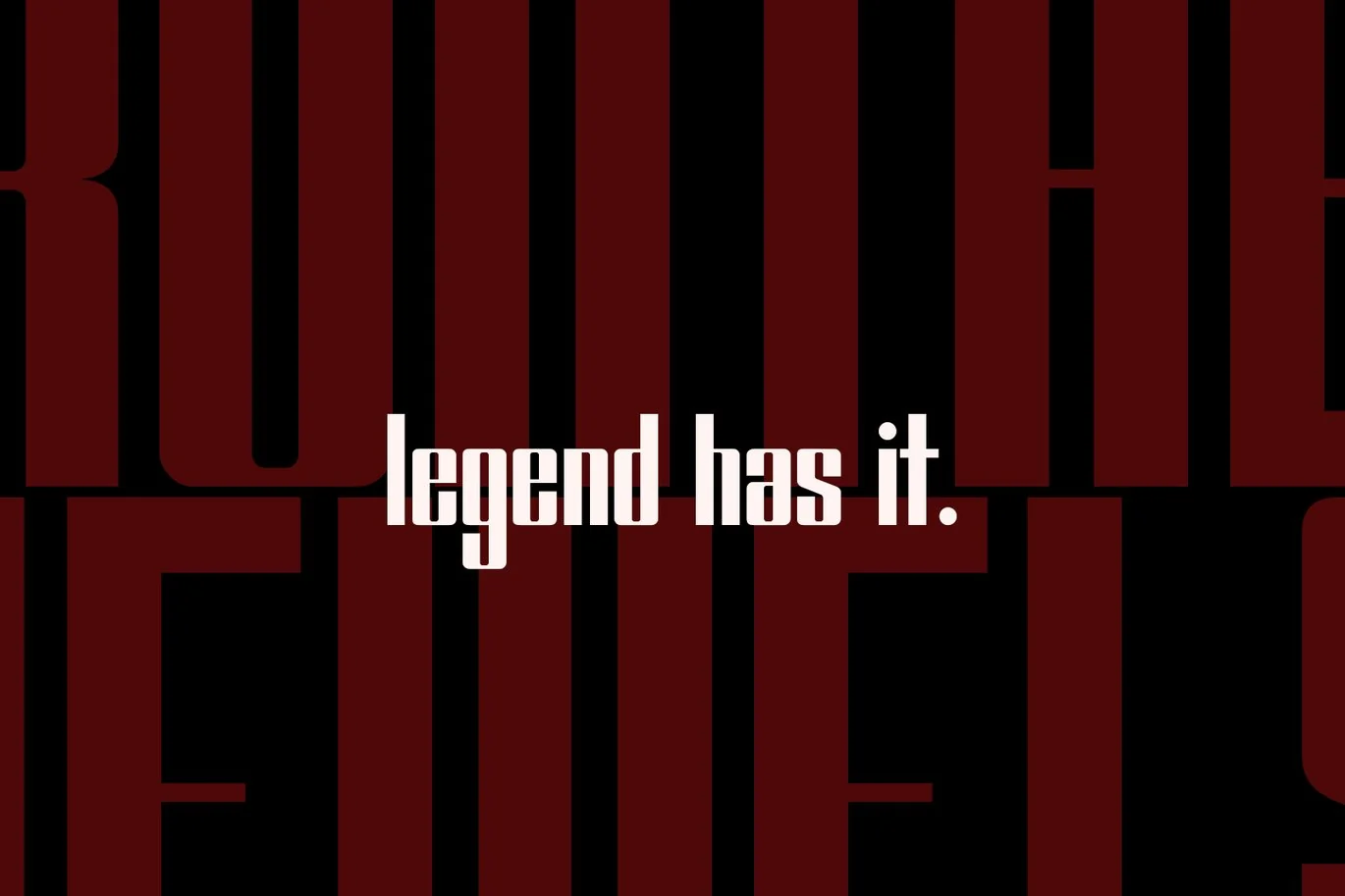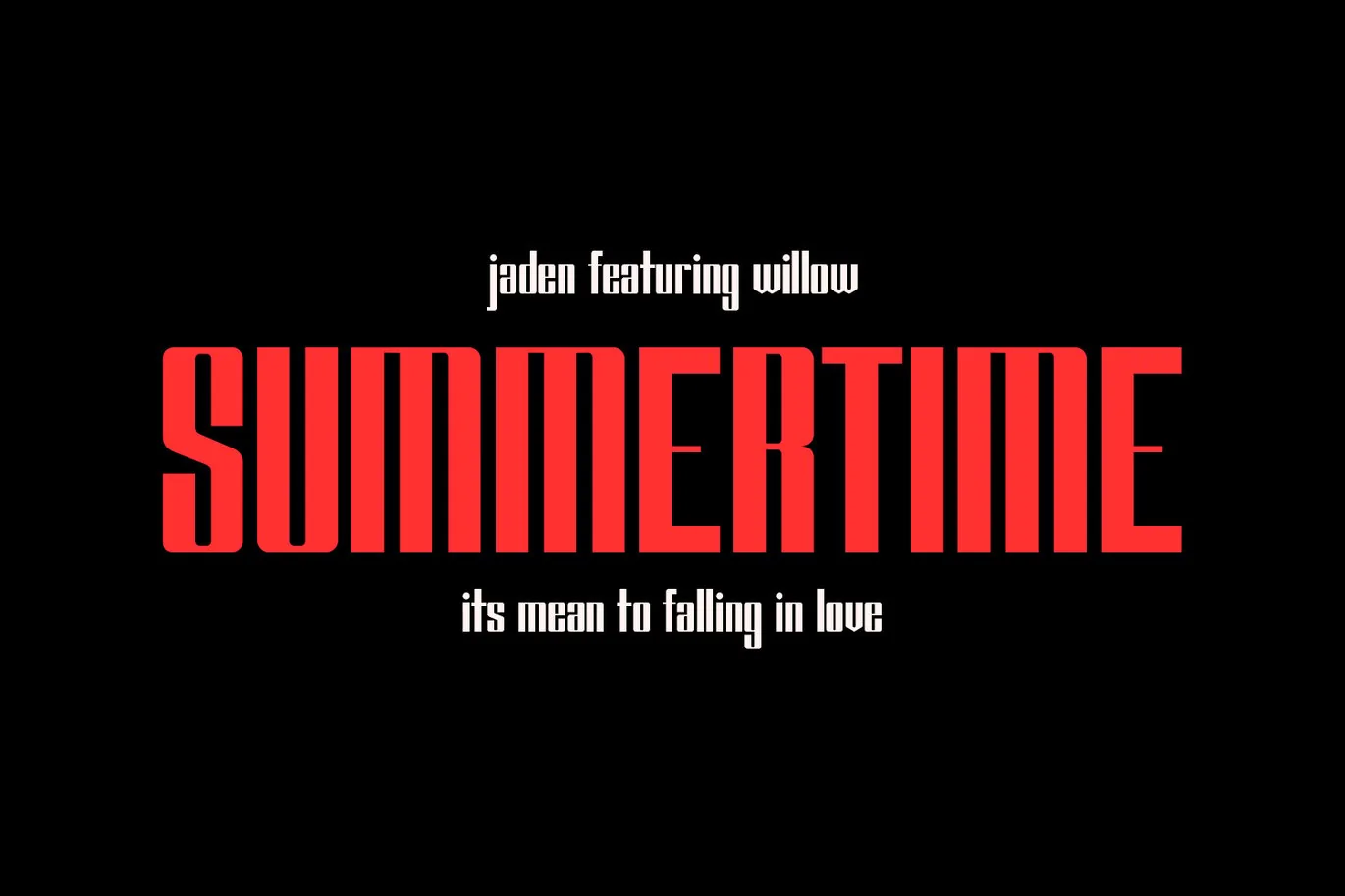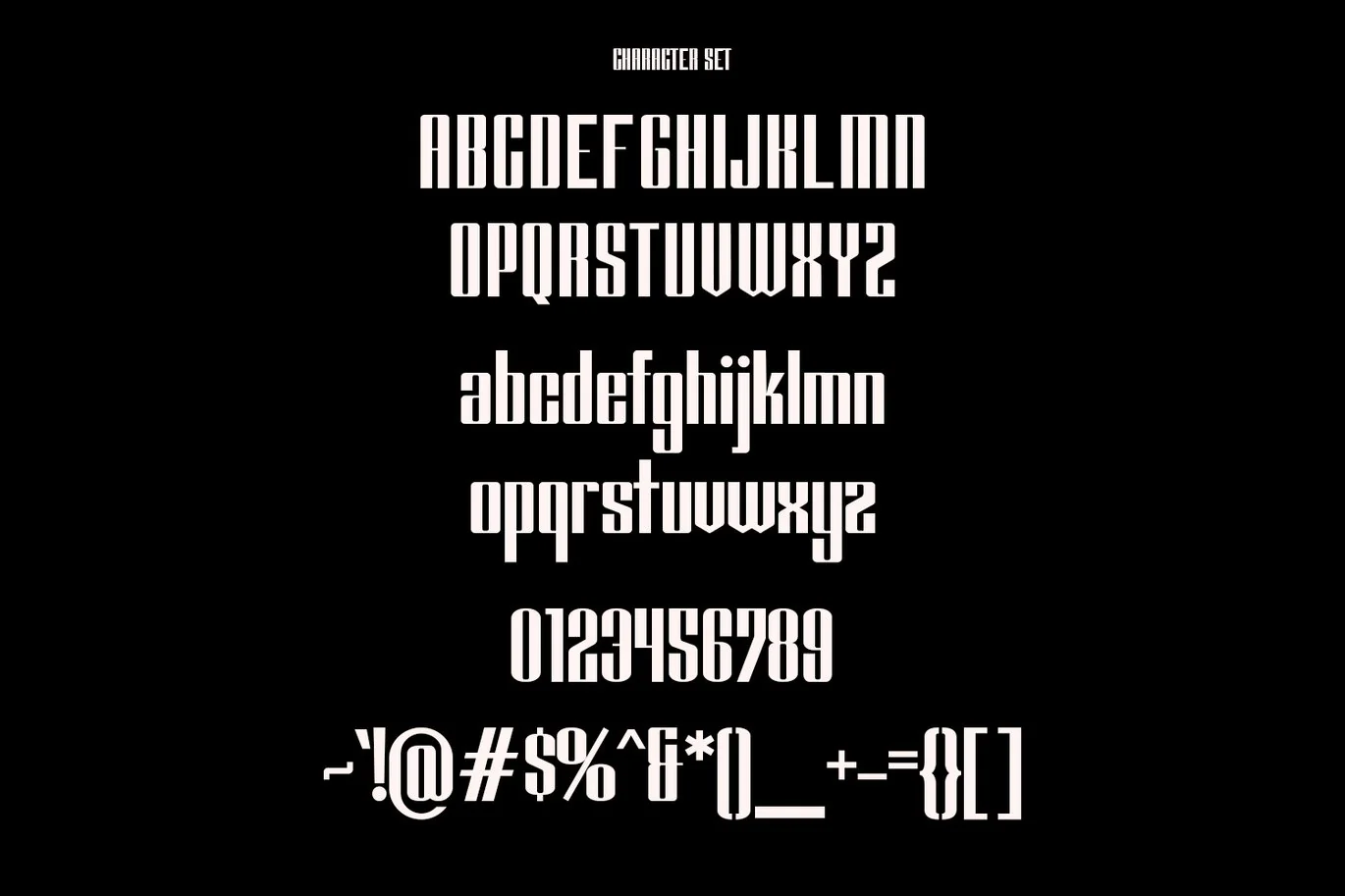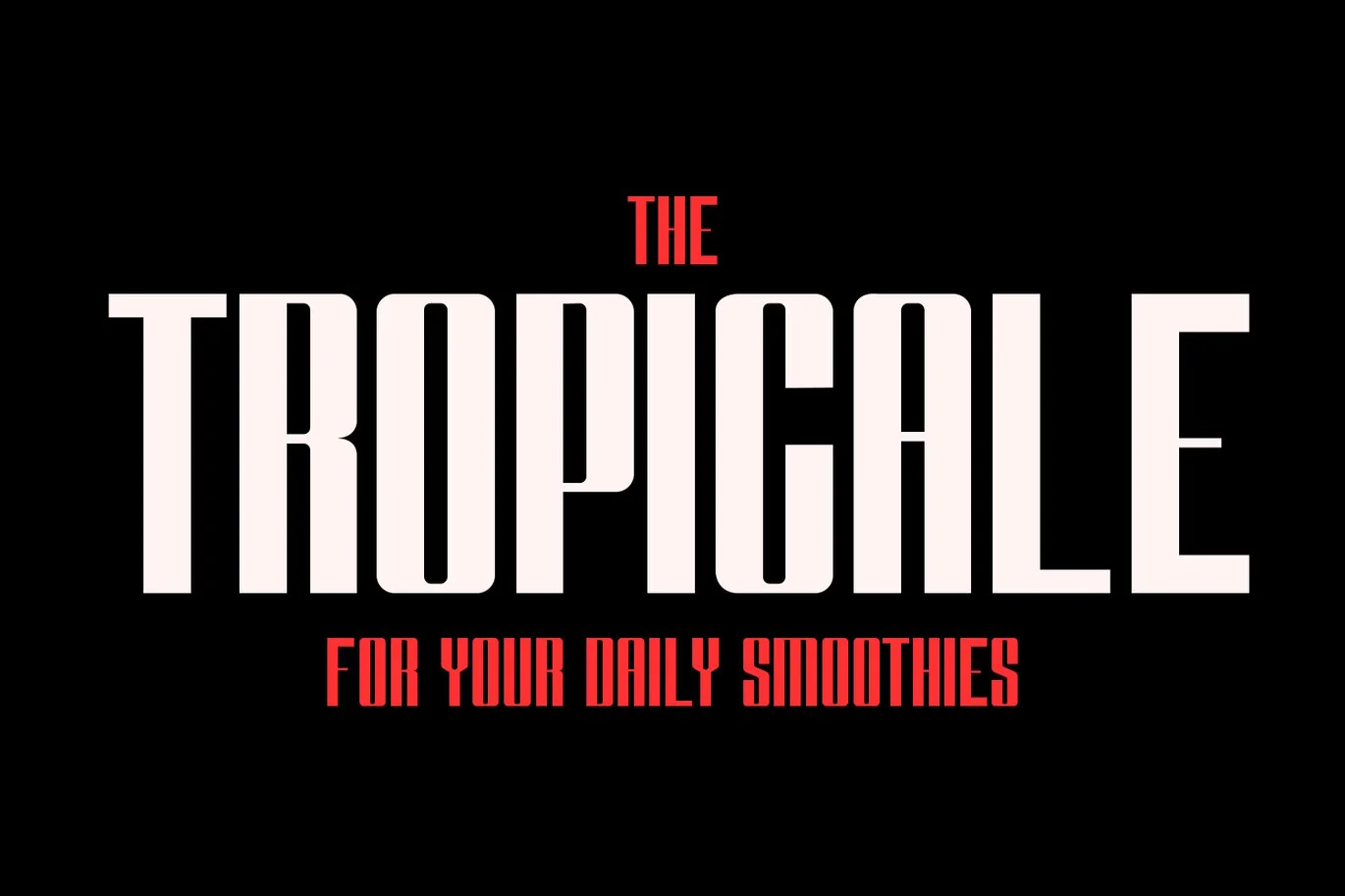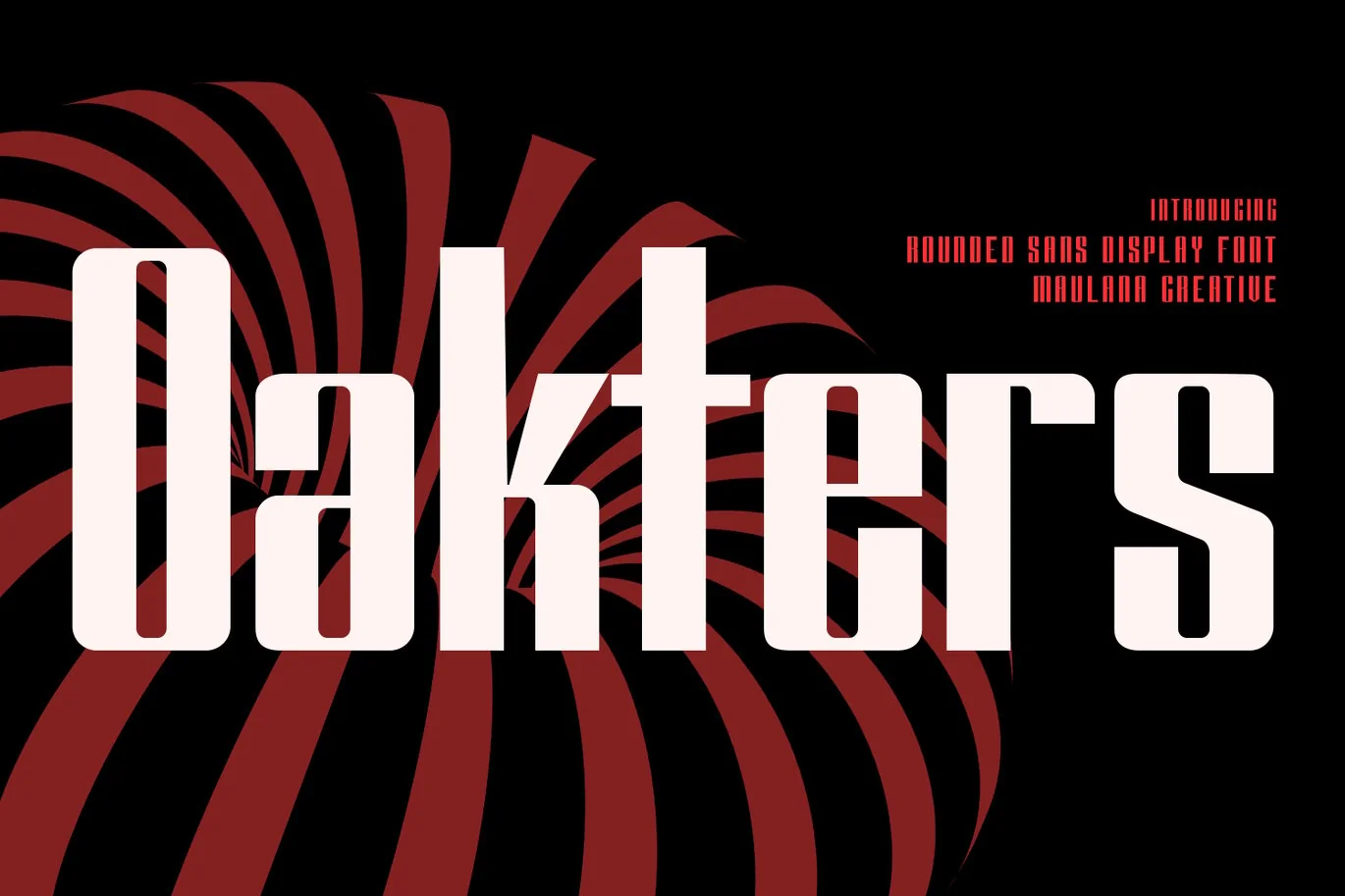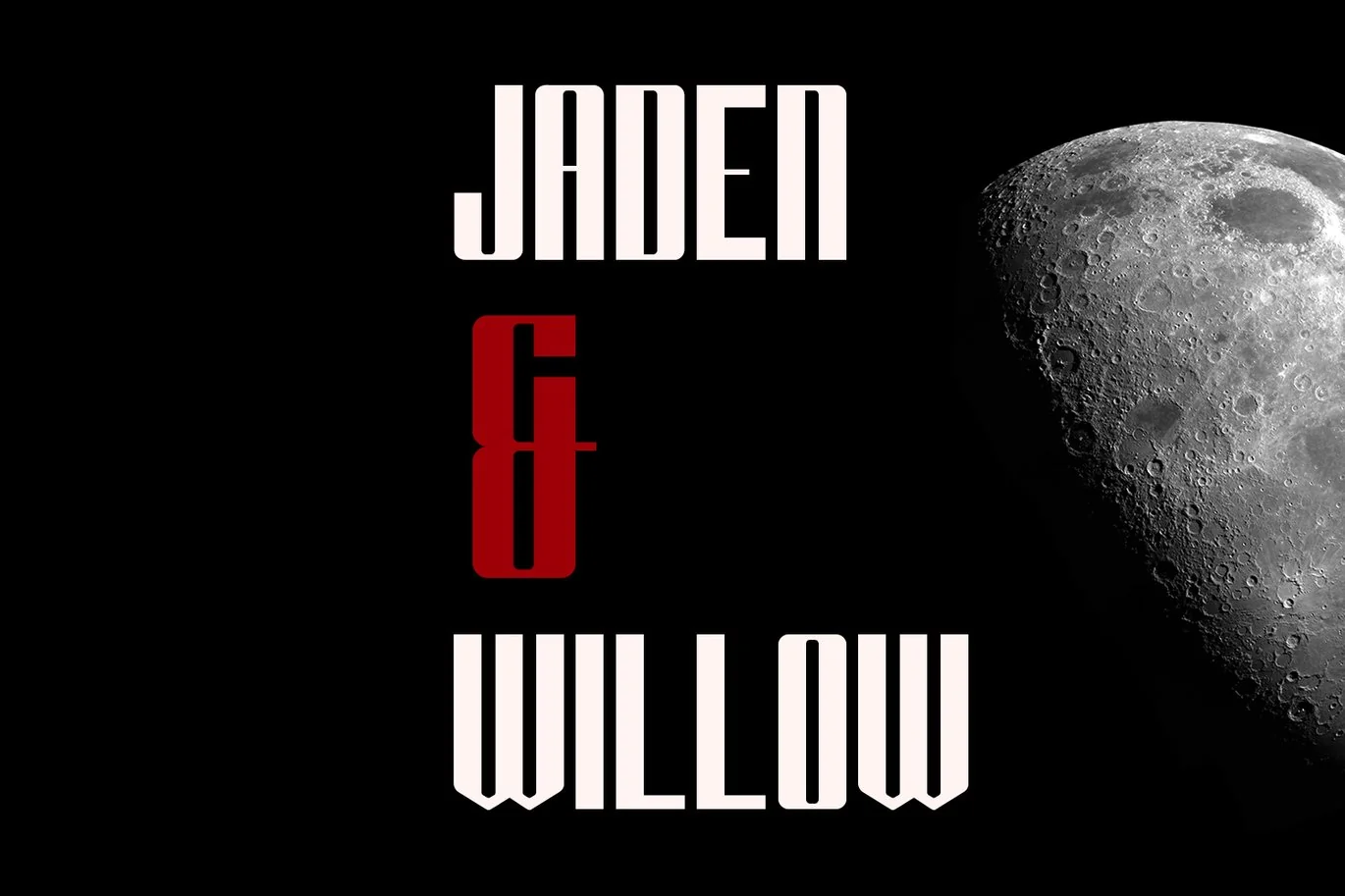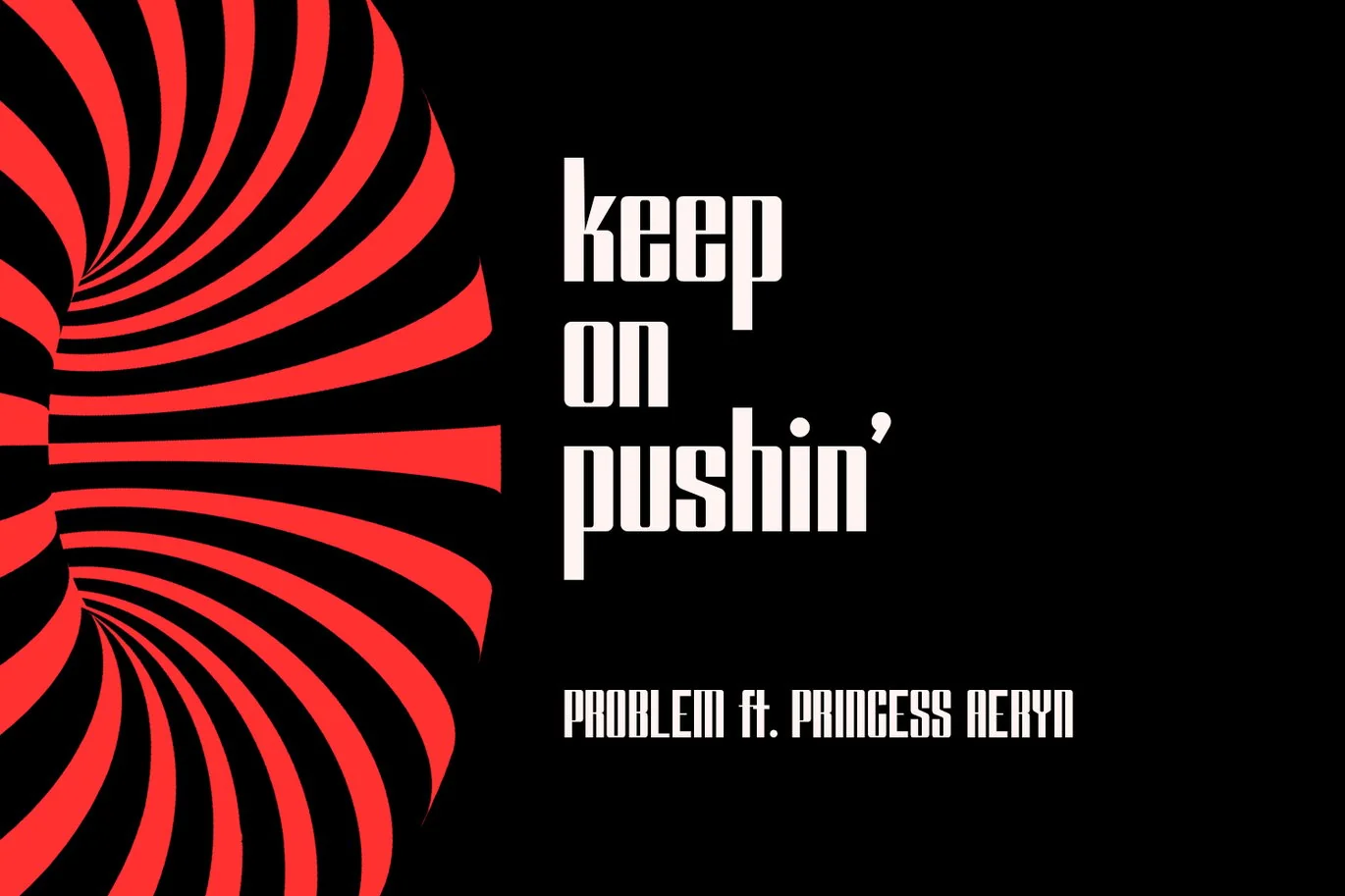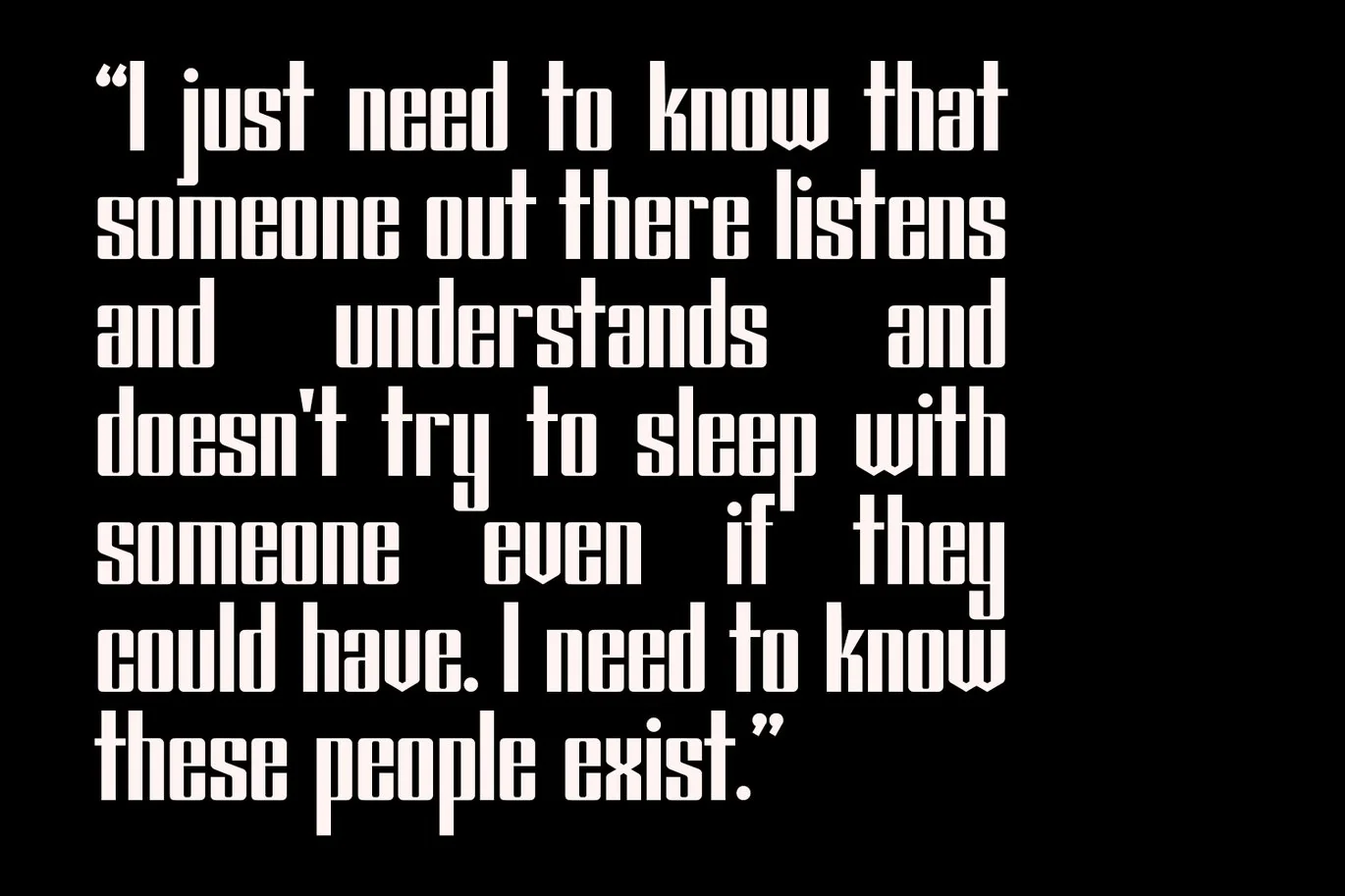
Oakters Luxury Neon Sans Display Font
Oakters is an Industrial tech vibes display font. With medium high contrast stroke, fun character with a bit of ligatures and alternates. To give you an extra creative work. Oakters font support multilingual more than 100+ language. This font is good for logo design, Social media, Movie Titles, Books Titles, a short text even a long text letter and good for your secondary text font with sans or serif. Make a stunning work with Oakters font.